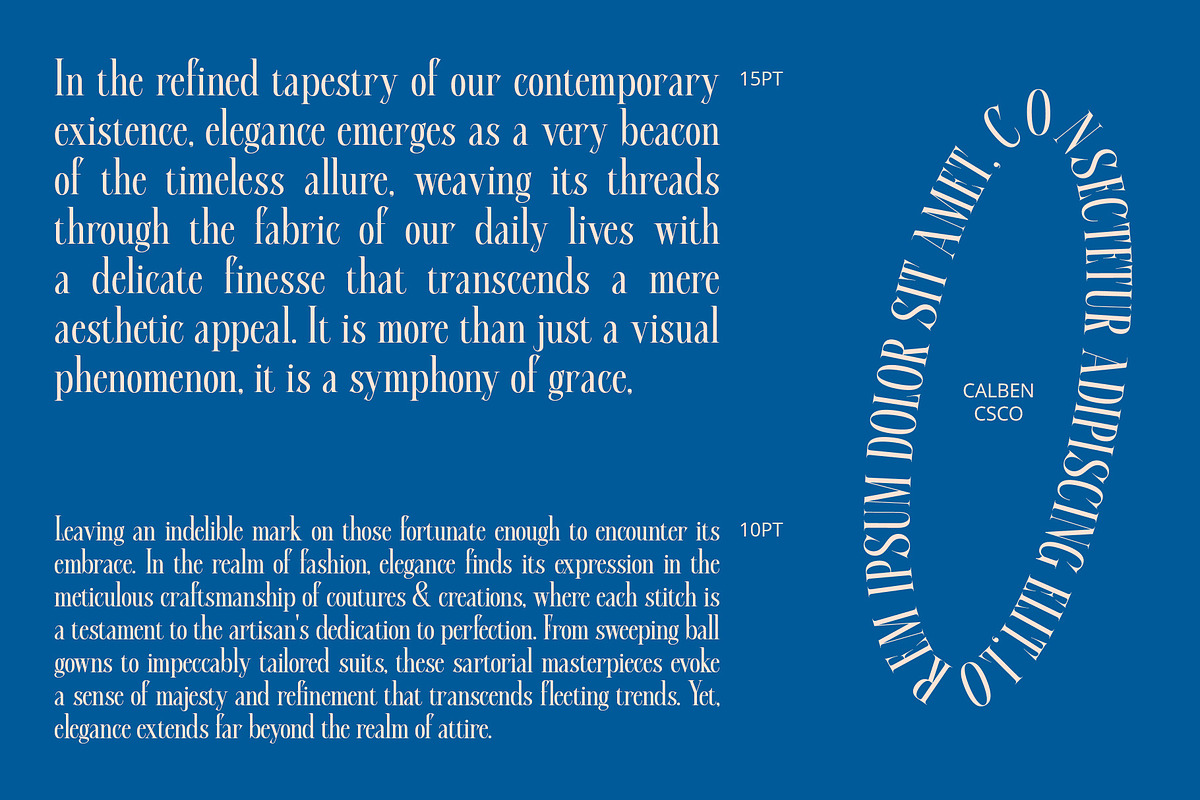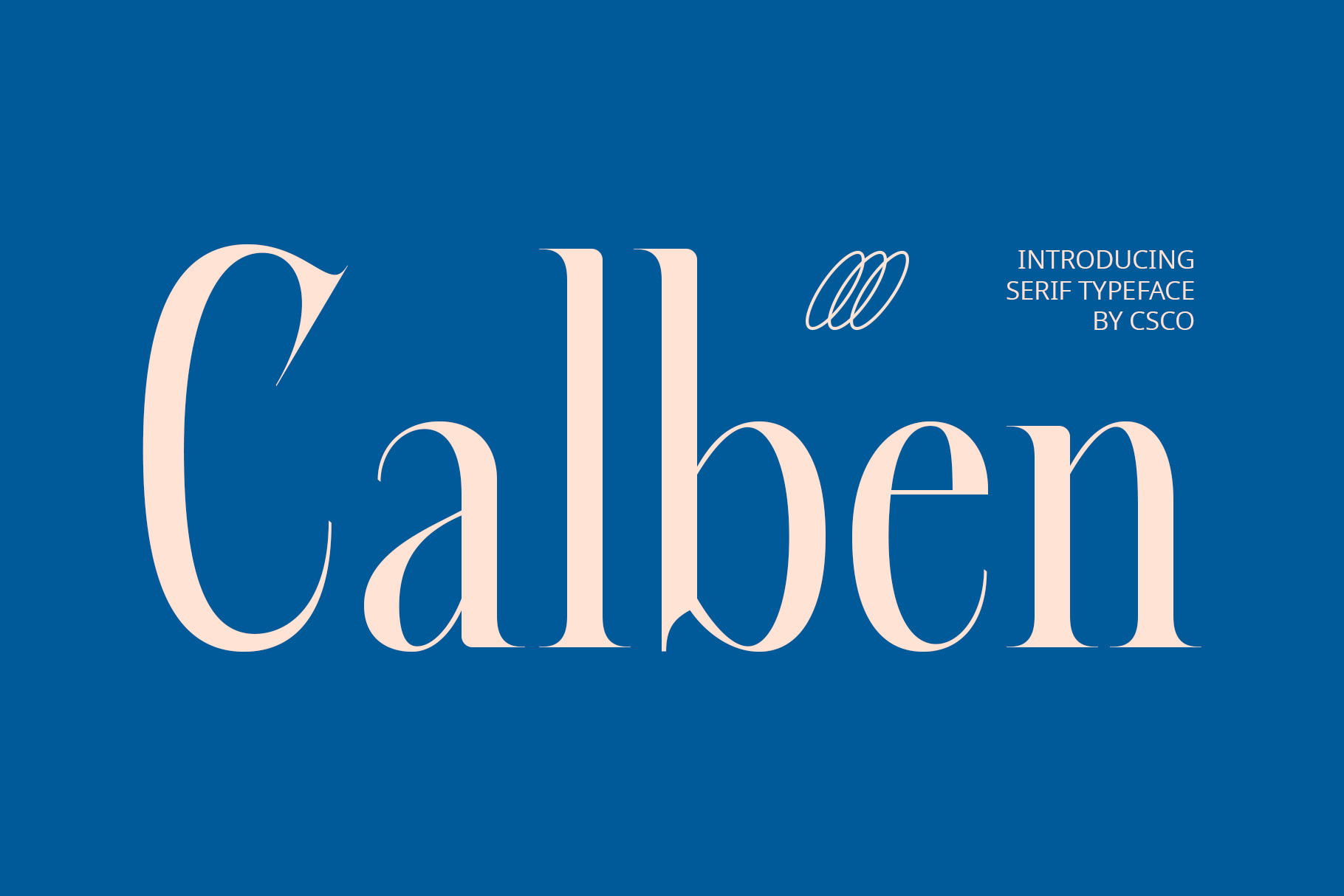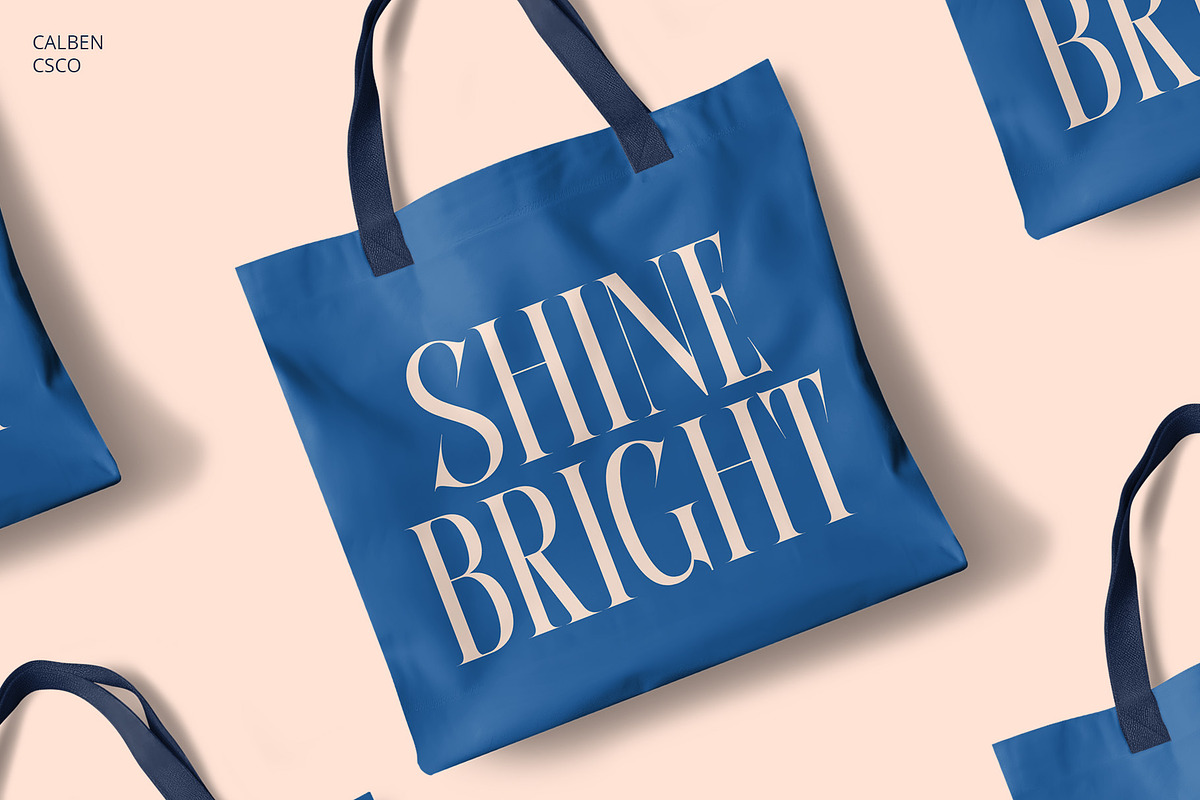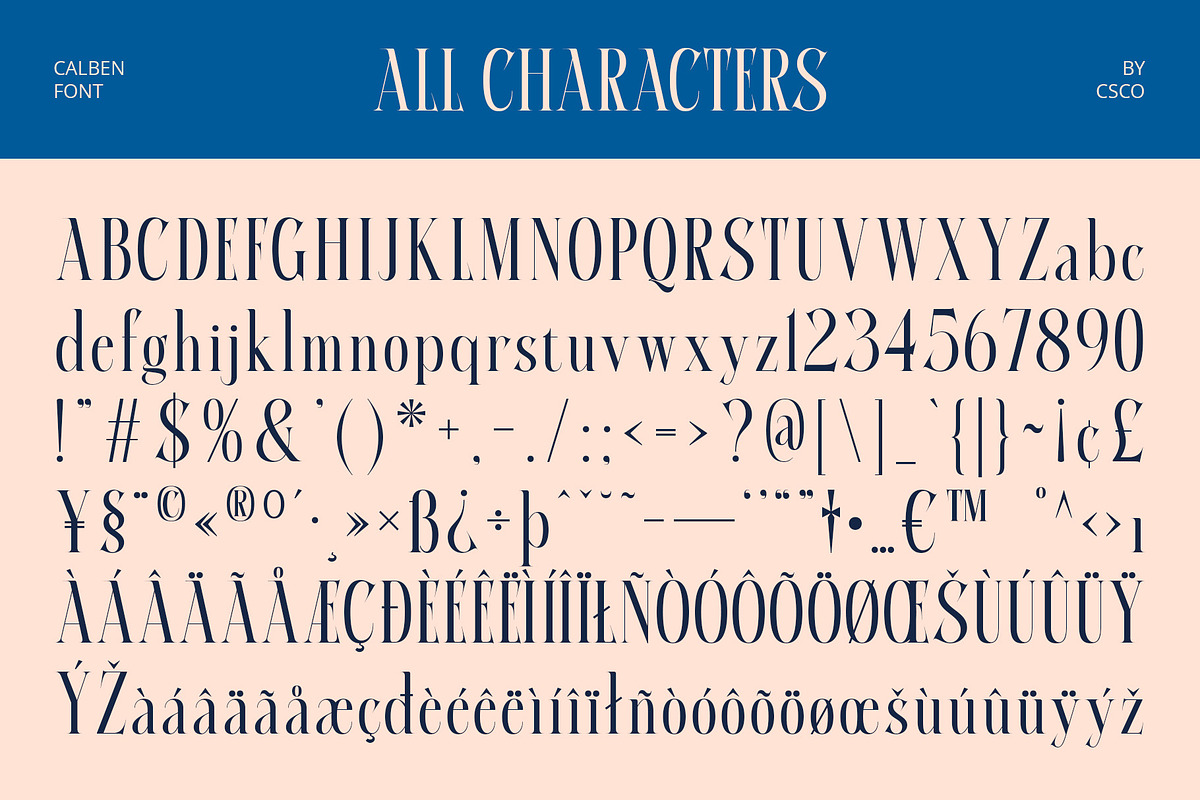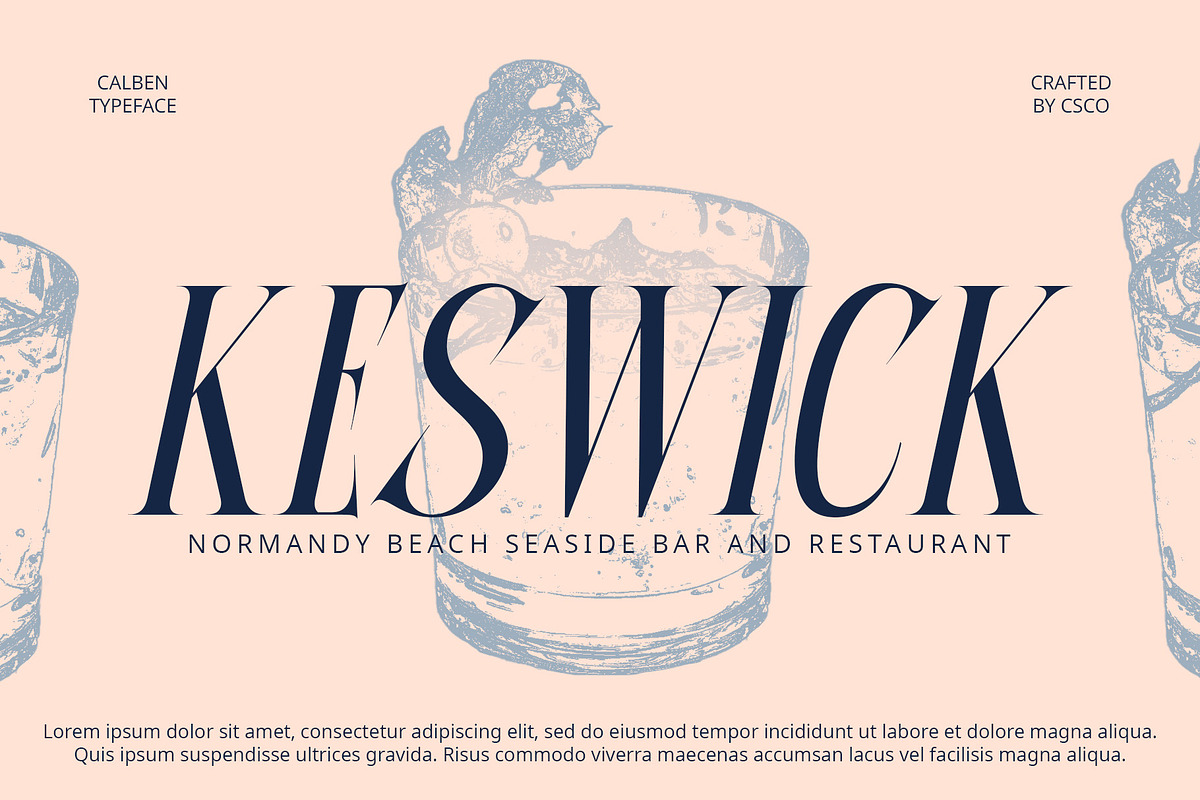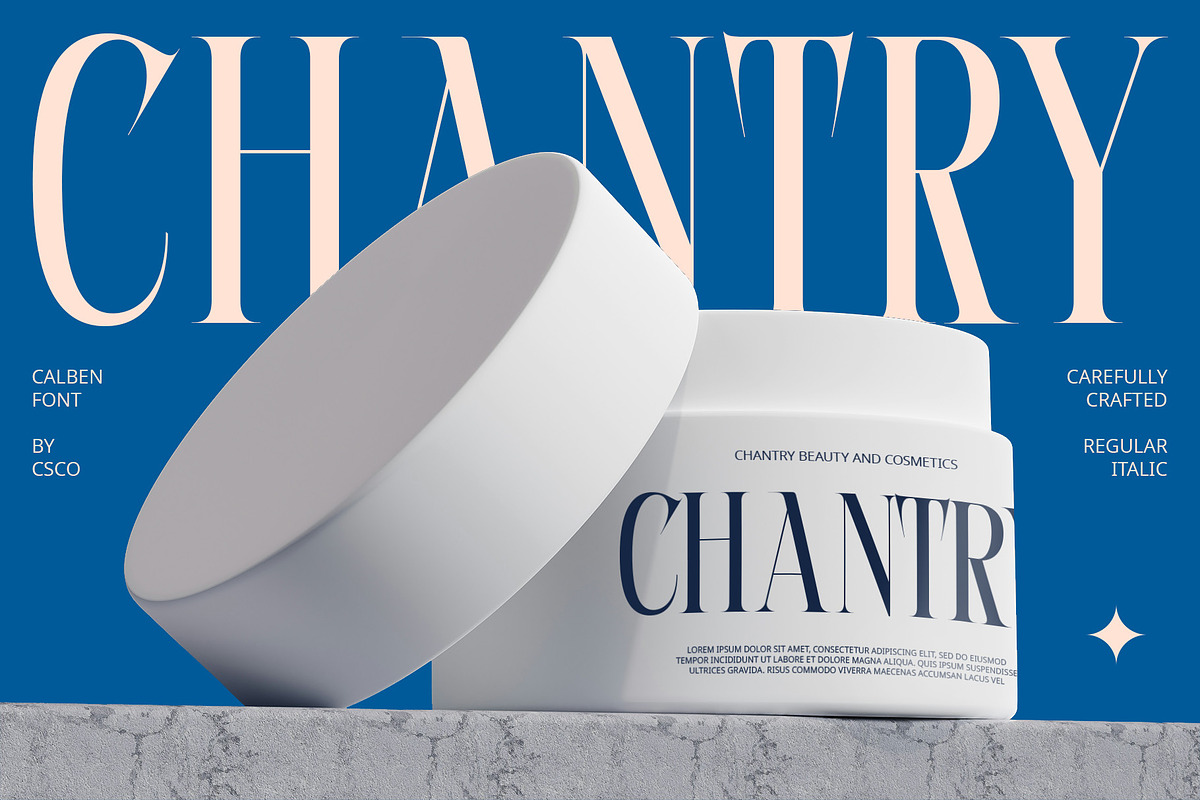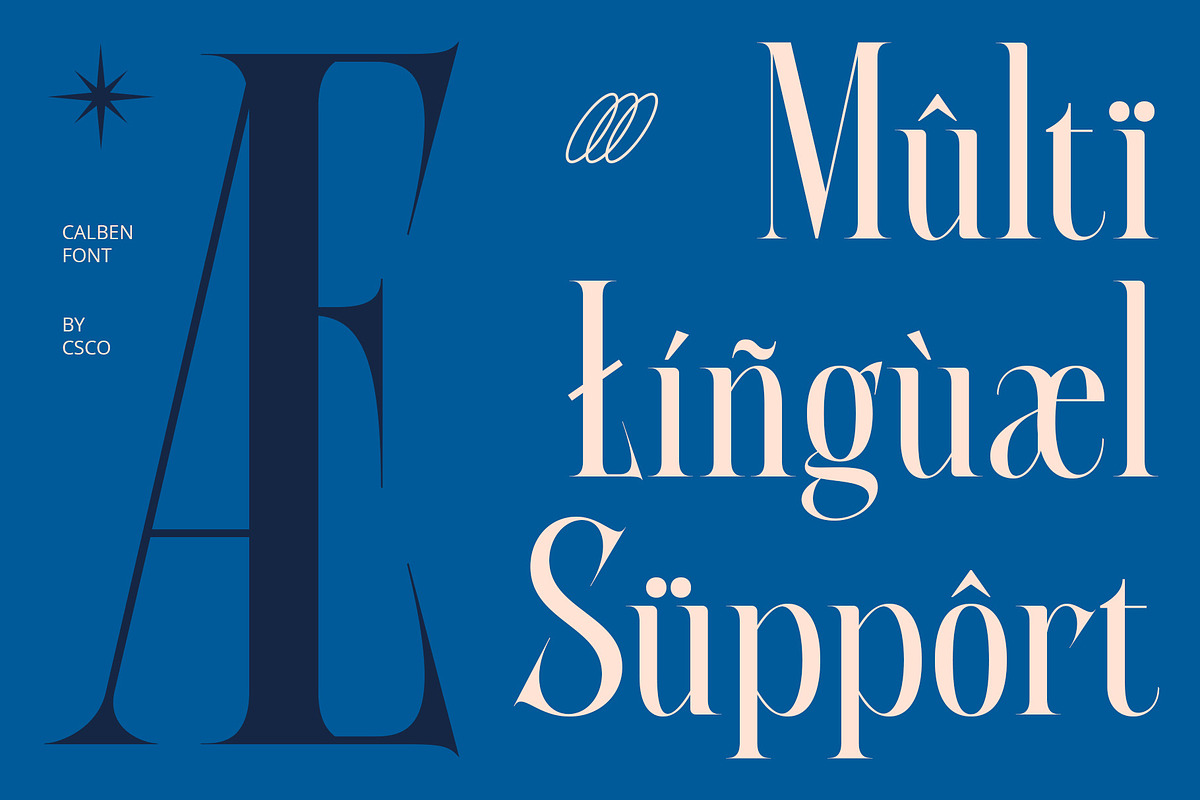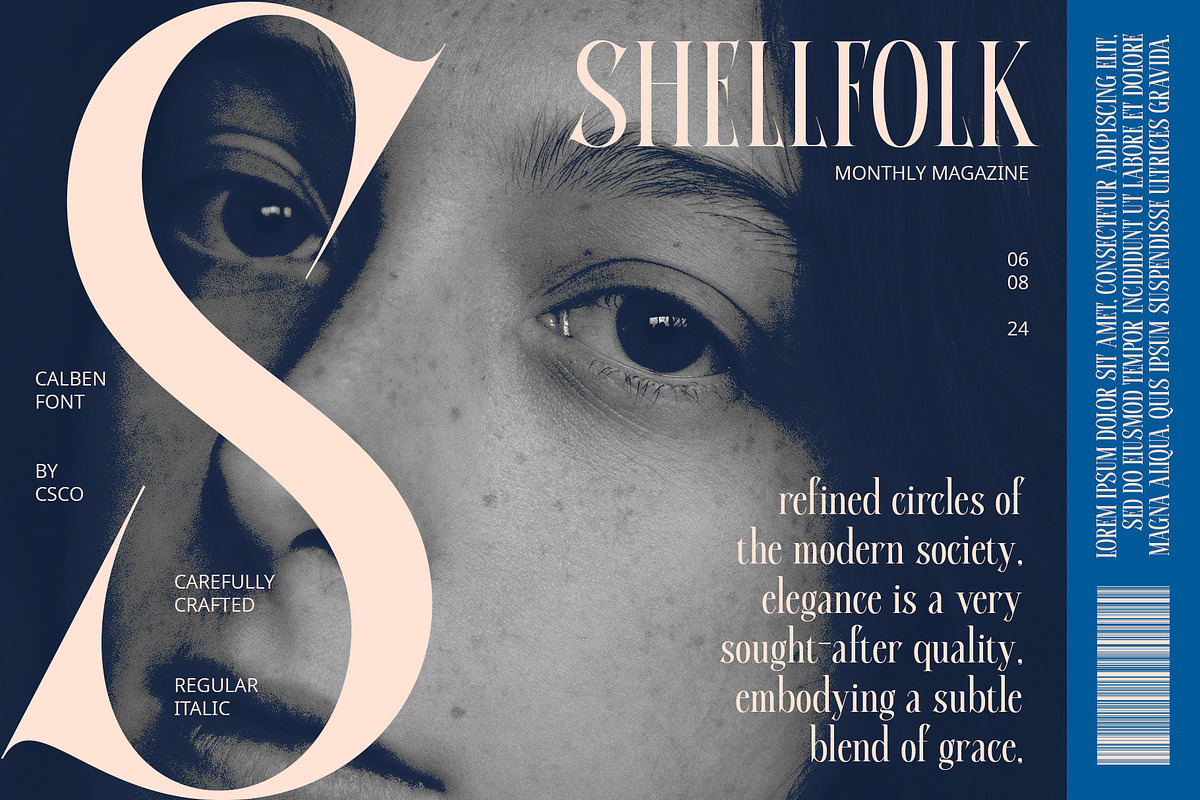
Calben – Elegant Font
Calben – Elegant Font: Where Modernity Meets Elegance
Modern Serif Font with Elegant Style
Calben is a modern serif font with an elegant style, perfect for design projects that prioritize a professional, luxurious, and elegant look. Its sleek lines and sophisticated details make it ideal for creating a refined and upscale appearance in various design applications.
Versatile and Luxurious
With its versatile design, Calben Font is suitable for a variety of uses, including branding, editorial design, and advertising. Its elegant style adds a touch of luxury and sophistication, ensuring that your designs convey a sense of professionalism and refinement.
Enhanced Elegance
Calben Font prioritizes elegance, ensuring that your designs exude sophistication and style. Whether used in print or digital media, this font adds a touch of class that enhances the overall aesthetic of your projects.
Perfect for Professional and Luxurious Designs
Whether you’re creating a high-end brand identity, designing a luxury magazine layout, or crafting an elegant wedding invitation, Calben Font is the perfect choice for projects that require a professional, luxurious, and elegant look. Its modern serif style ensures that your designs will always look sophisticated and timeless.
- Calben Regular
- Calben Italic